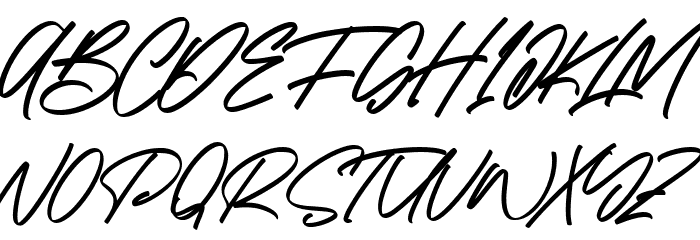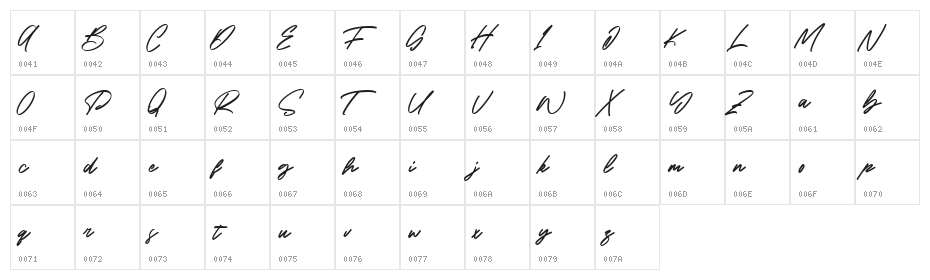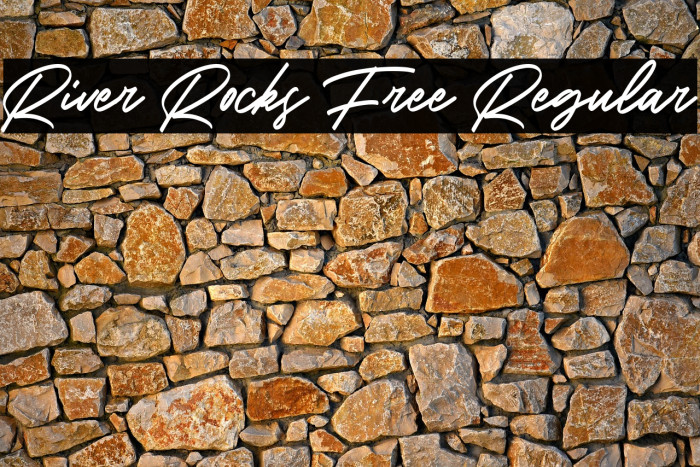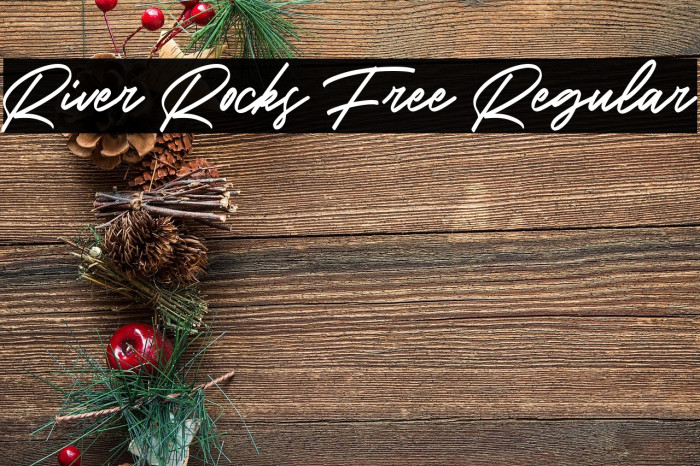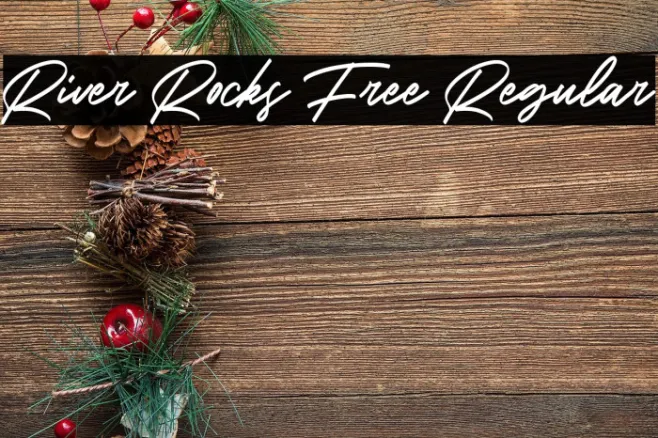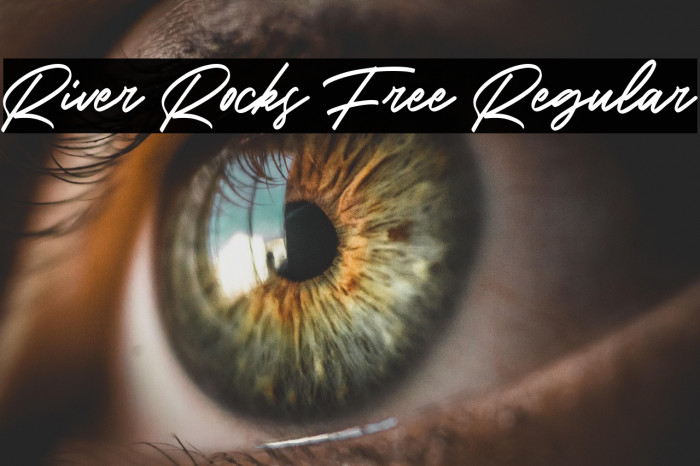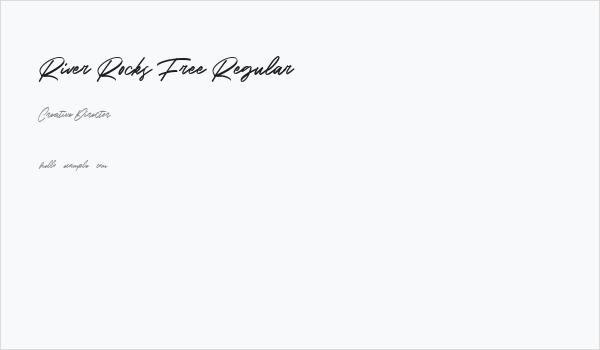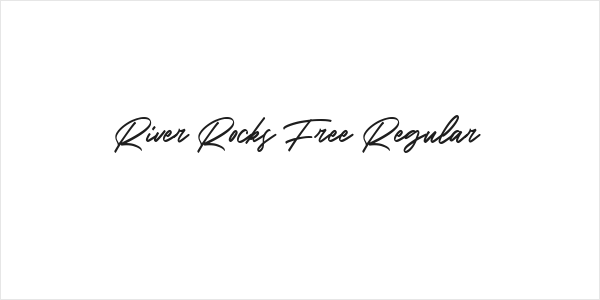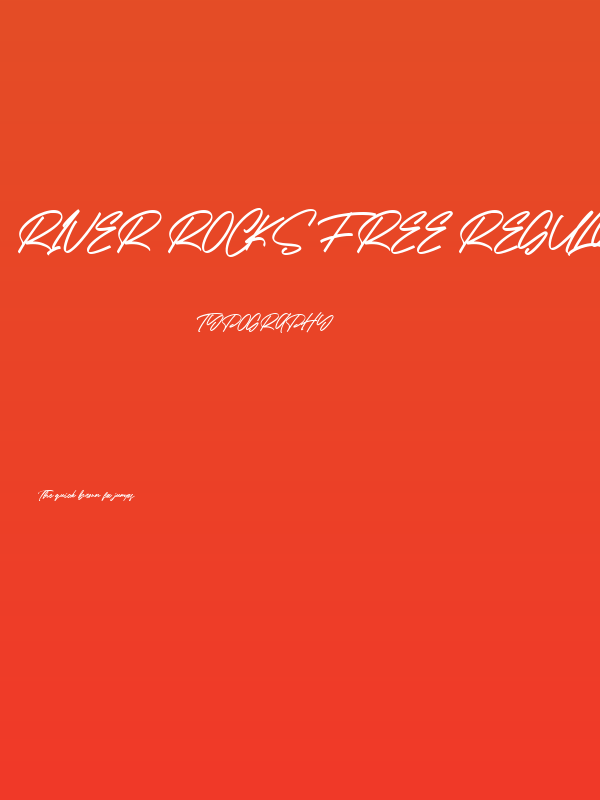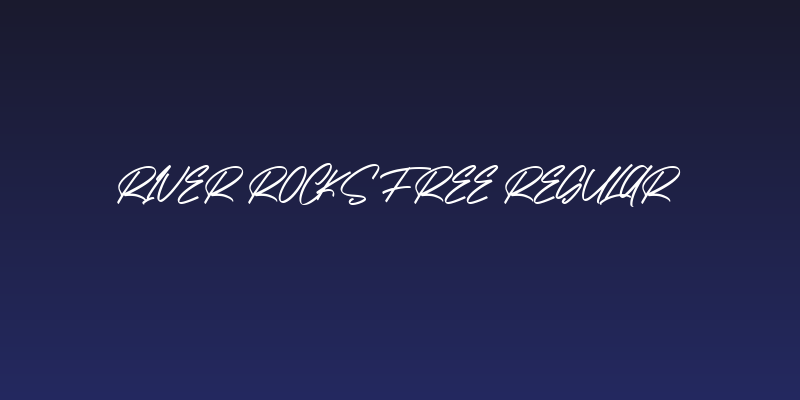
River Rocks Free Regular Font
River Rocks Free Regular Description
This font exudes a dynamic and fluid style, characterized by its cursive script that mimics the natural flow of handwriting. The letters are interconnected, creating a seamless and elegant appearance. The strokes are bold and confident, with a slight slant that adds to its expressive nature. The uppercase letters are particularly striking, with sweeping curves and loops that convey a sense of movement and grace. The lowercase letters maintain a consistent style, complementing the uppercase with their smooth and flowing lines. This font is ideal for projects that require a personal touch or a sense of sophistication.
| Proposed Projects | Ideal for wedding invitations, personal branding, greeting cards, and elegant logos. |